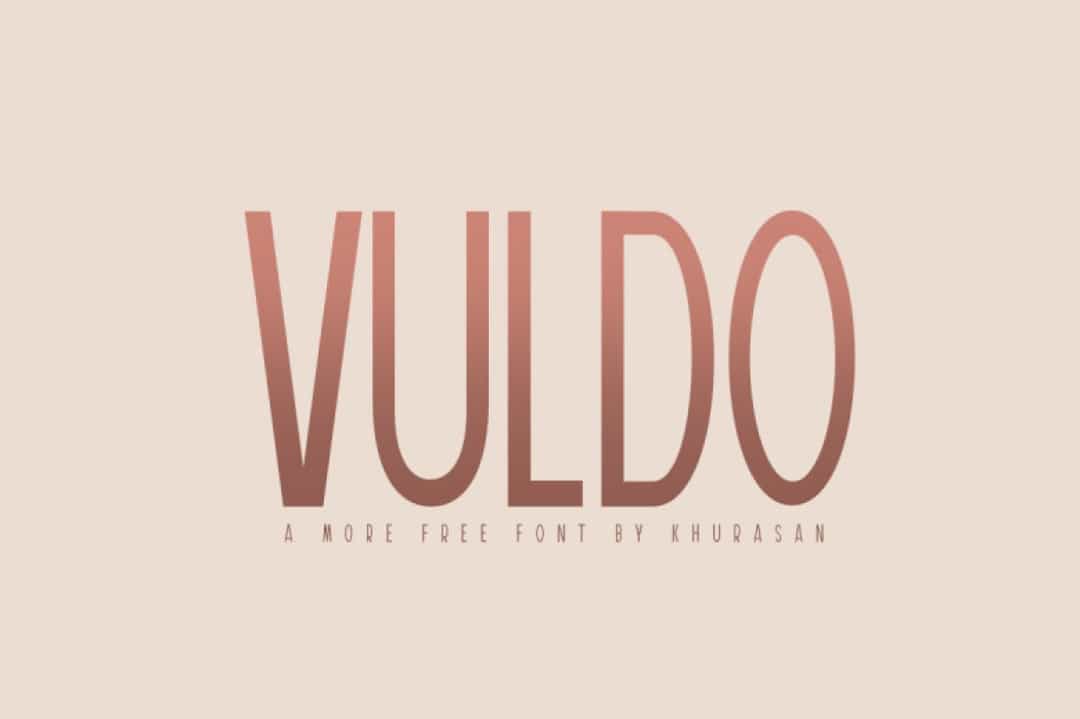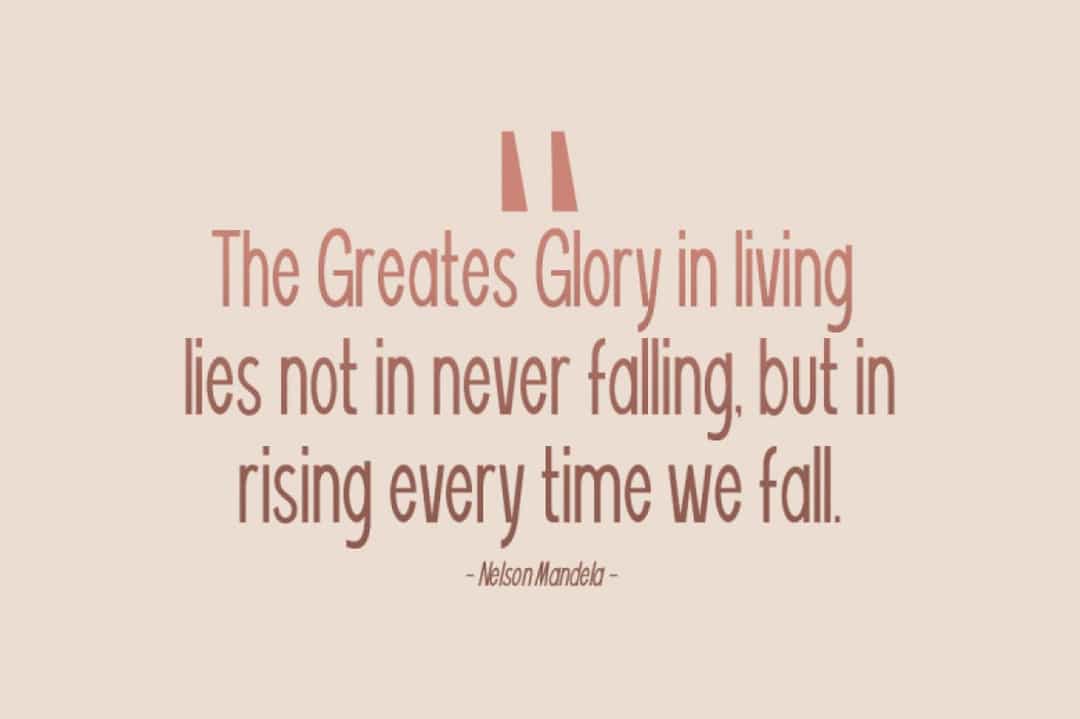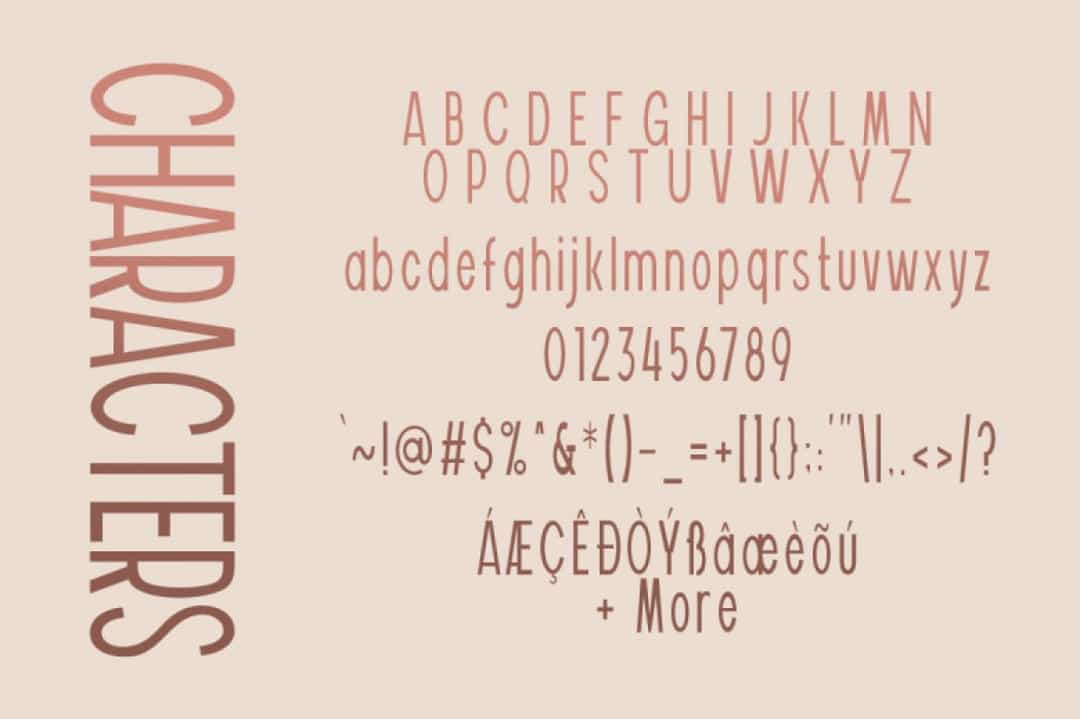
Discover Vuldo Sans Serif Font, part of the Sans Serif collection—a versatile and unique font perfect for adding a personal touch to your projects. Download it for free and enjoy crafting designs with style, from invitations to social media posts. This font is available exclusively for personal use, giving you the freedom to create without limits. Unlock your creativity with Vuldo Sans Serif Font today!
The design of Vuldo Font is quite modern and cute, but at the same time it is quite neutral and seems to be designed with the purpose of not influencing the viewer in any way. Of course, this car features numerous characteristics that allow it to be a true workhorse when you need it to be. Join us!